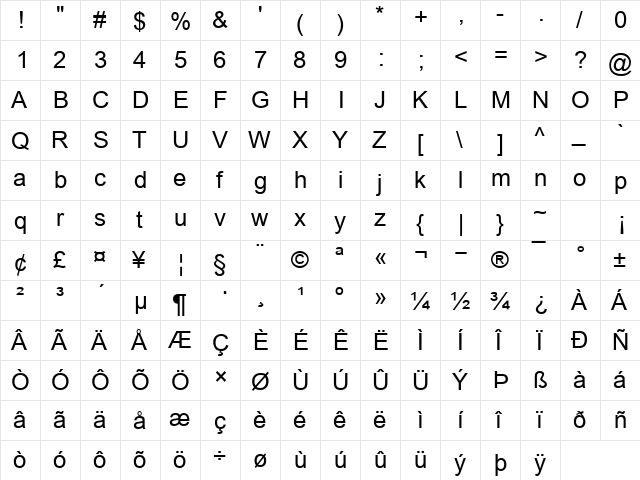
Aria Regular
Design Context for Aria Typeface
Aria takes a measured approach to typography — its balanced proportions and neutral character make it a reliable workhorse for both digital and print work.
Pro Tip: Pair Aria with a font of contrasting weight or personality to build a more expressive typographic hierarchy.